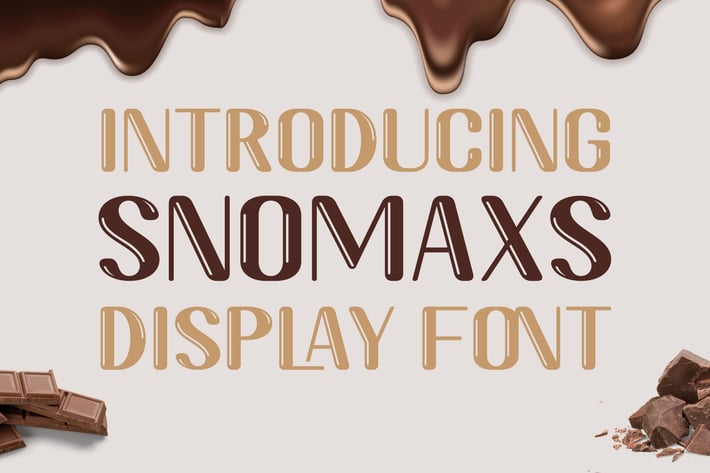
Snomax Display Font
Introducing Snomaxs, a captivating display font designed to bring a touch of frosty elegance to your projects. Whether you're crafting a holiday card, designing a winter-themed logo, or adding a magical touch to your social media graphics, Snomax is your go-to font for creating stunning, eye-catching designs.
Ligatures:
Snomax includes a variety of unique ligatures that seamlessly connect specific letter combinations, ensuring smooth and aesthetically pleasing typography. These ligatures enhance the visual flow of your text, making your design look polished and professional.
Swash:
With beautifully designed swash characters, Snomaxs allows you to add a flourish to your text. These intricate, decorative extensions can be applied to the beginning and end of letters, adding an elegant, handwritten touch that is perfect for invitations, greeting cards, and other special projects.
Stylistic Sets:
Customize your typography with Snomax's stylistic sets, offering alternate versions of certain characters. These stylistic sets give you the flexibility to choose the perfect character variations that match the mood and tone of your design, from playful and whimsical to sophisticated and refined.
* Multilingual Support:
Snomaxs is designed to be inclusive and versatile, supporting a wide range of languages. With an extensive character set, including accented characters and special symbols, Snomaxs ensures that your message can be beautifully conveyed in multiple languages, making it ideal for global projects.
Usage:
Snomaxs is perfect for a variety of creative projects, including:
Branding and Logo Design: Create memorable and distinctive logos that stand out.
Print Materials: Design stunning posters, flyers, and brochures.
Social Media Graphics: Enhance your online presence with stylish and engaging posts.
Invitations and Greeting Cards: Add a personal and festive touch to your event stationery.